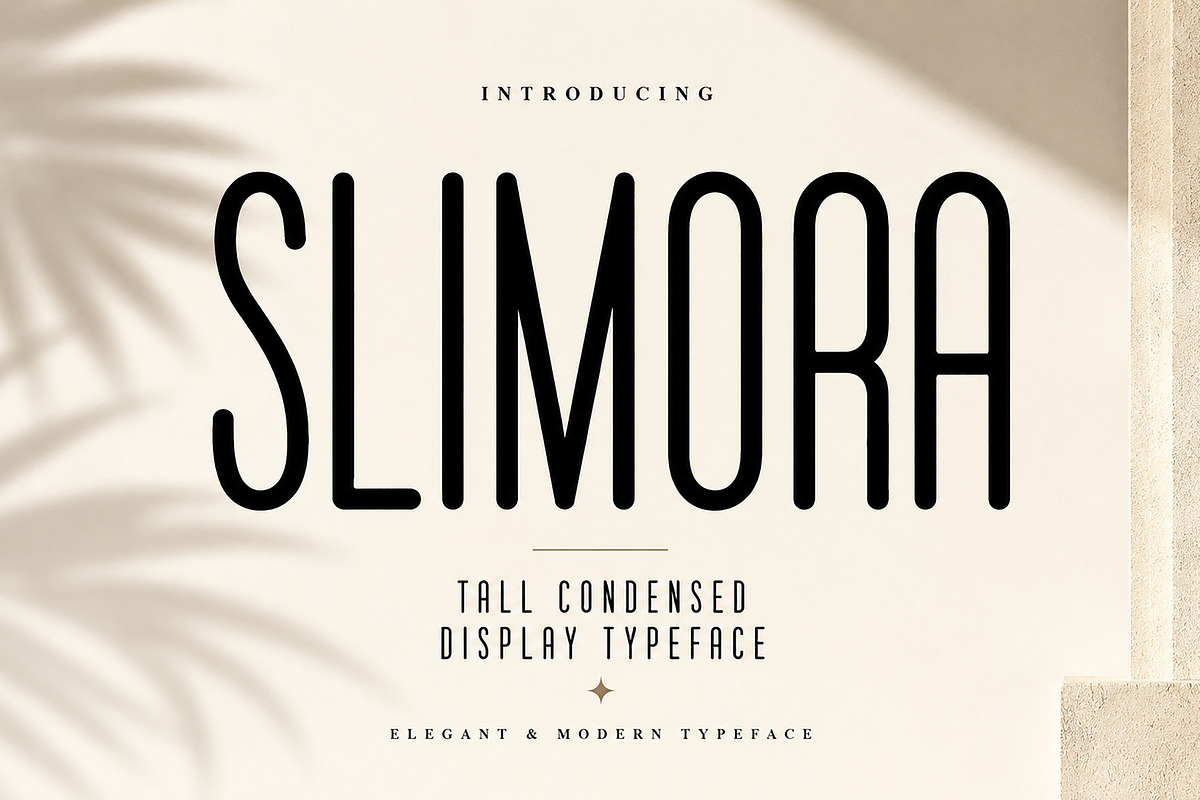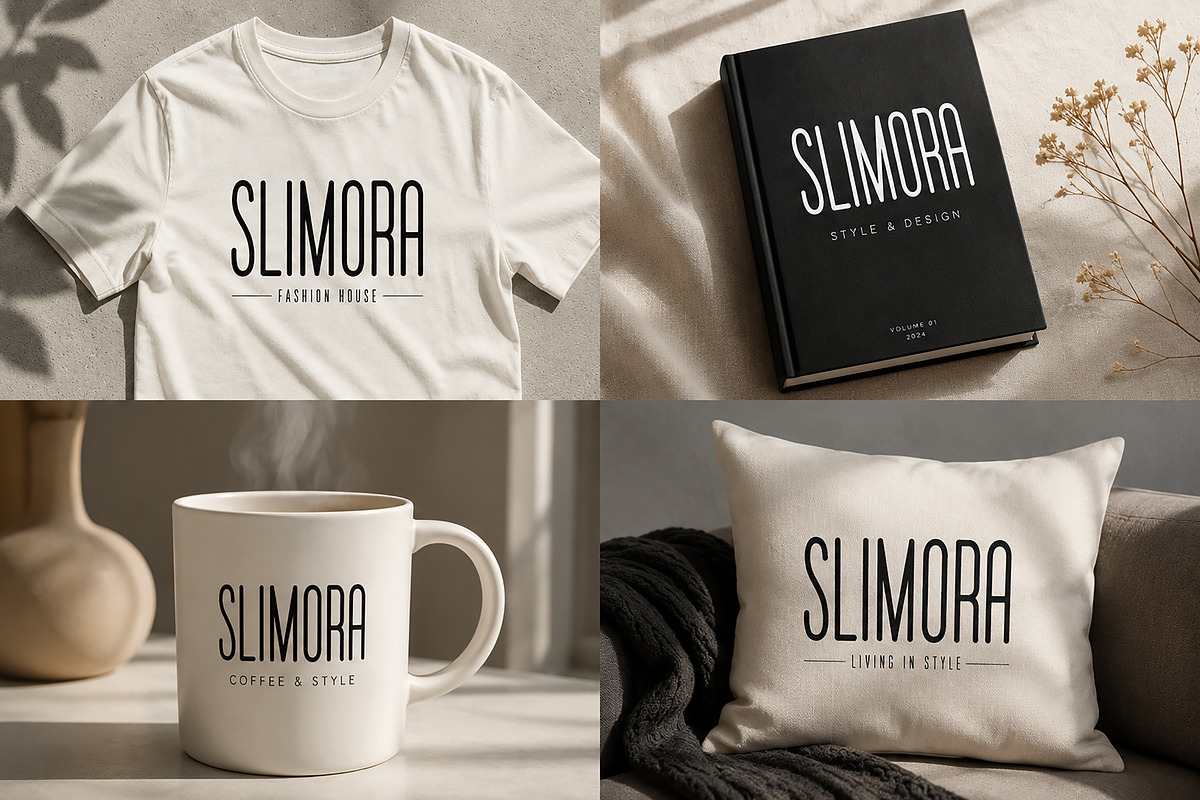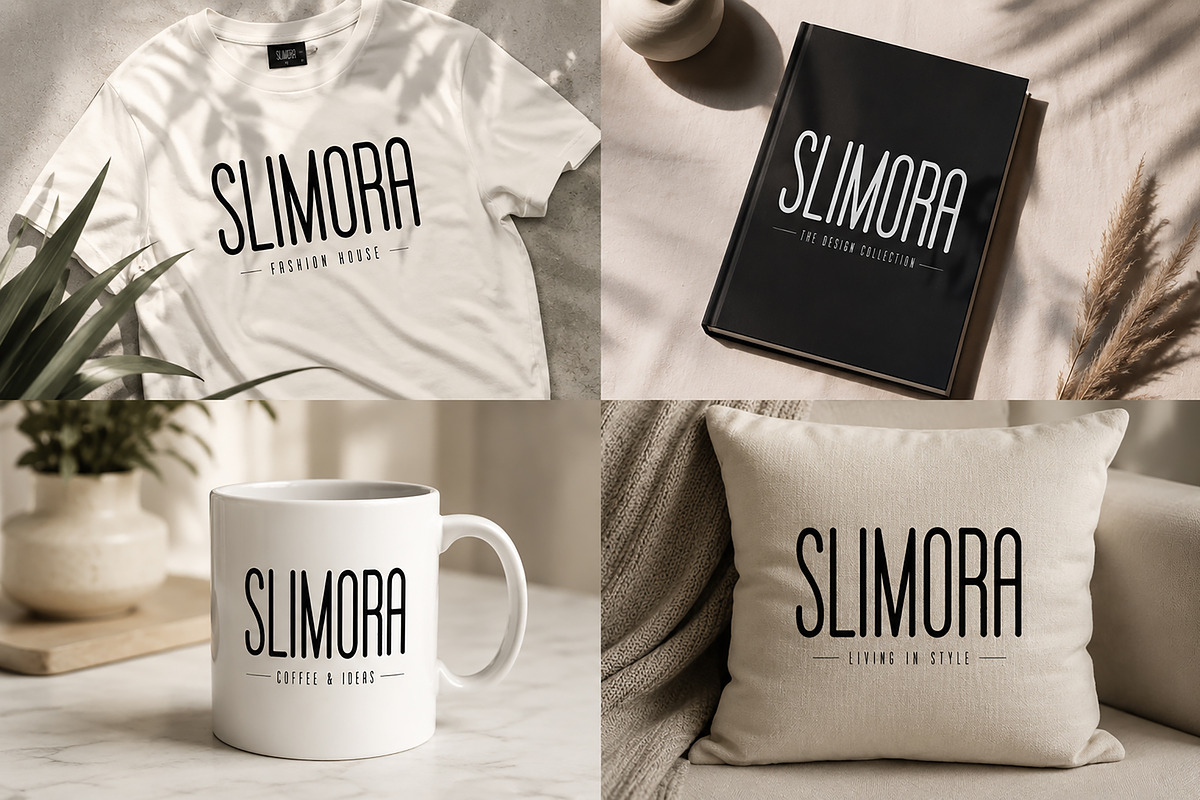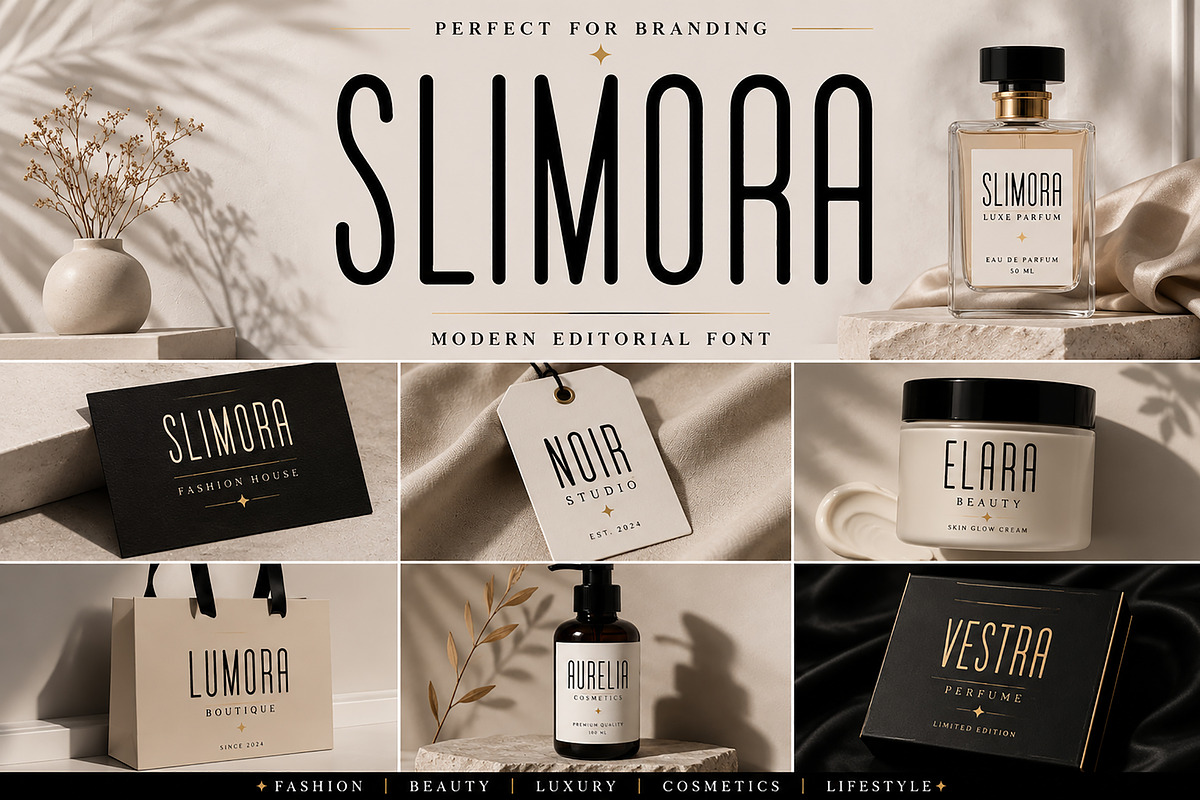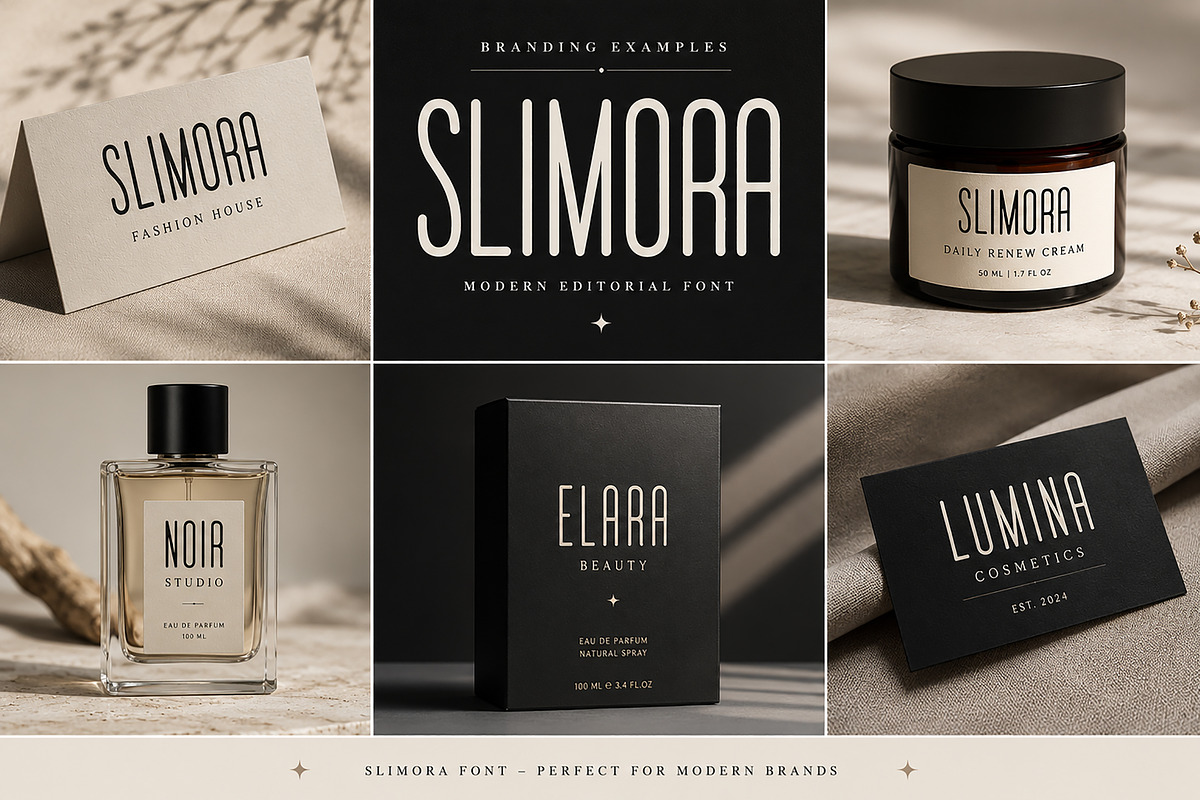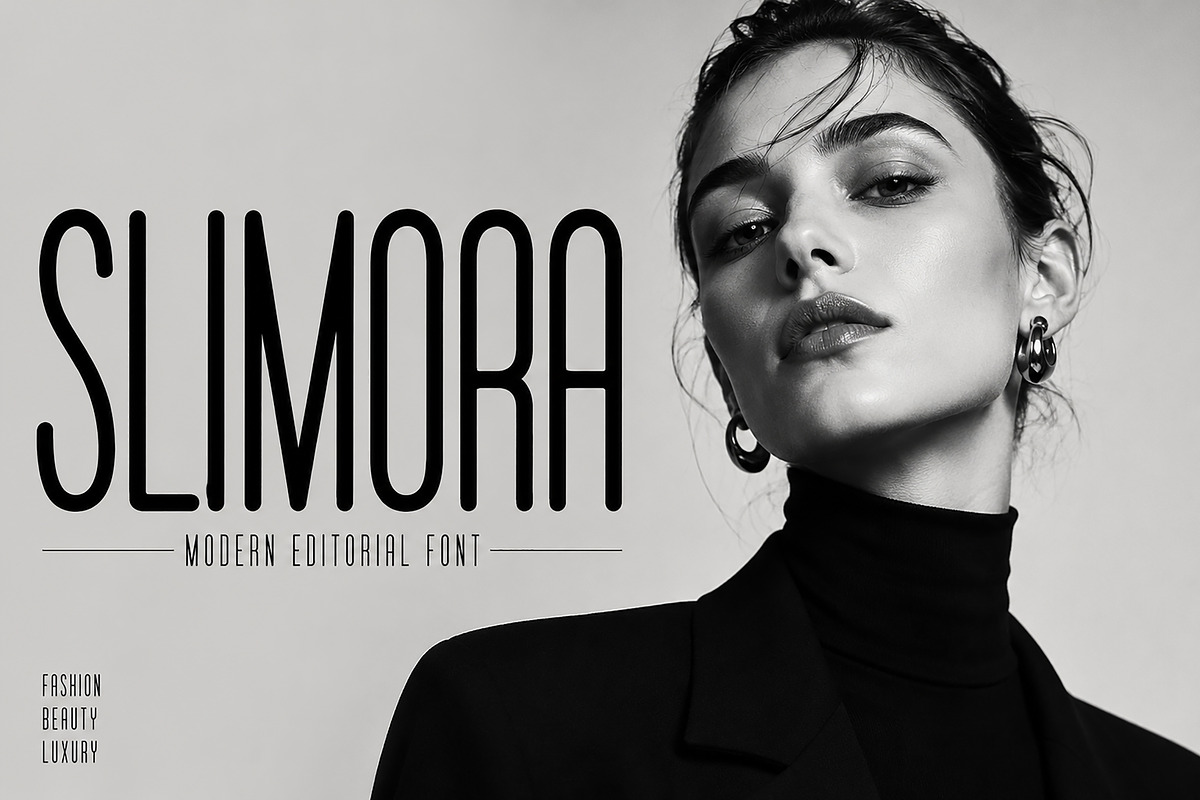
Slimora
SLIMORA – Tall Condensed Display Font
SLIMORA is a modern tall condensed display font designed to bring elegance, sophistication, and contemporary style to your creative projects. With its slim letterforms, clean geometry, and minimalist aesthetic, SLIMORA is perfect for luxury branding, fashion editorials, magazine headlines, logo design, cosmetics packaging, advertising, and premium lifestyle products.
Inspired by high-end fashion publications and modern luxury brands, this typeface delivers a strong visual presence while maintaining a refined and professional appearance. Its elongated structure creates a distinctive editorial look that instantly captures attention and elevates any design.
Whether you're creating a fashion campaign, beauty brand identity, boutique logo, social media graphics, packaging design, or stylish merchandise, SLIMORA offers the perfect balance of modern simplicity and luxury appeal.
Fashion Branding
Luxury Logos
Editorial Design
Magazine Covers
Beauty & Cosmetic Packaging
Perfume Branding
Boutique Branding
Posters & Headlines
Merchandise Design
Modern Advertising
Clean & Minimal Design
Modern Editorial Style
Bring elegance, confidence, and modern sophistication to your next project with SLIMORA.